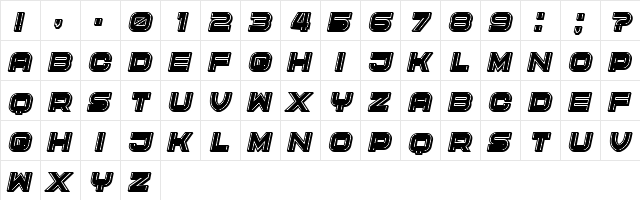
Cyber Princess 3D Filled Italic
Design Context for Cyber Princess 3D Filled Typeface
Cyber Princess 3D Filled channels digital-age aesthetics through its sharp, structured letterforms — ideal for brands that want to signal innovation. The dynamic lean of this cut emphasises speed and emphasis in any layout.
Pro Tip: Use Cyber Princess 3D Filled in combination with a neutral sans for body text. Let it define the brand voice in headlines while keeping reading comfortable elsewhere.